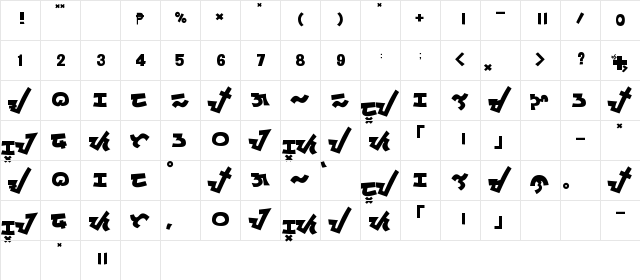
BaybayinMT Aku Regular
Design Context for BaybayinMT Aku Typeface
BaybayinMT Aku offers clean, dependable letterforms without strong stylistic allegiance, making it a practical choice for designers who need flexibility.